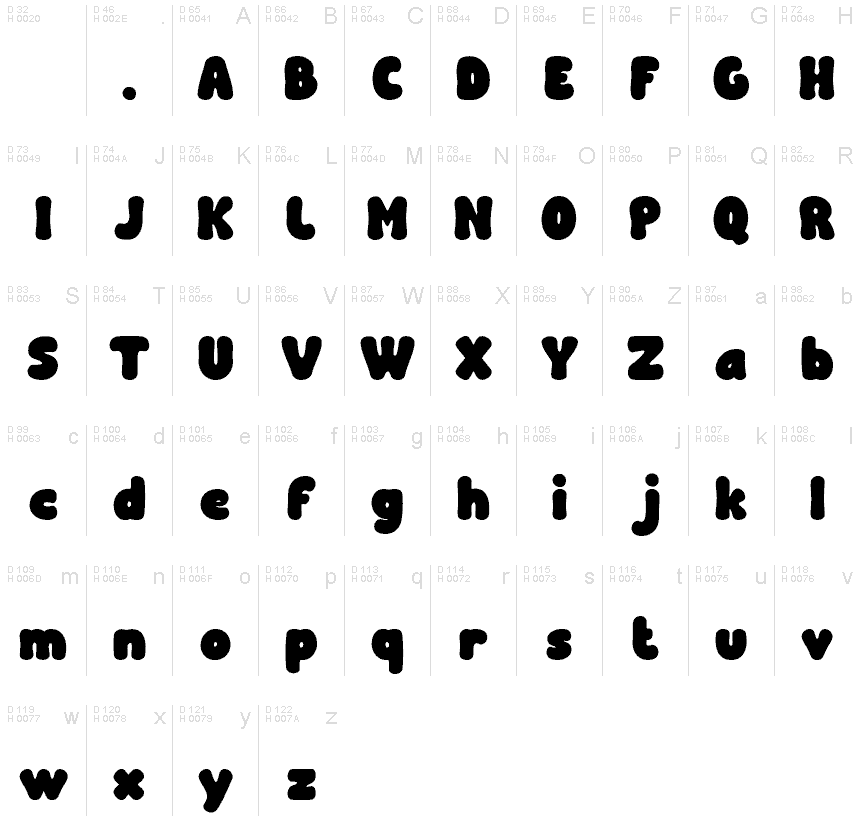
Tropical Vibes Regular
Tropical Vibes font by Achmad Yani of Flawless and co. is a cartoon display typeface with a retro aesthetic that captures the spirit of the 1960s and 70s with its bold shapes. Casual, lively, and full of nostalgia, this free font invokes relaxed yet vibrant moods that can be easily translated into today’s designs.
Get creative with Tropical Vibes by incorporating it into your prints, website designs, apparel items like t-shirts and tote bags, music posters for bands and festivals, events promotions for nightlife venues like clubs or bars where energy is key to creation!